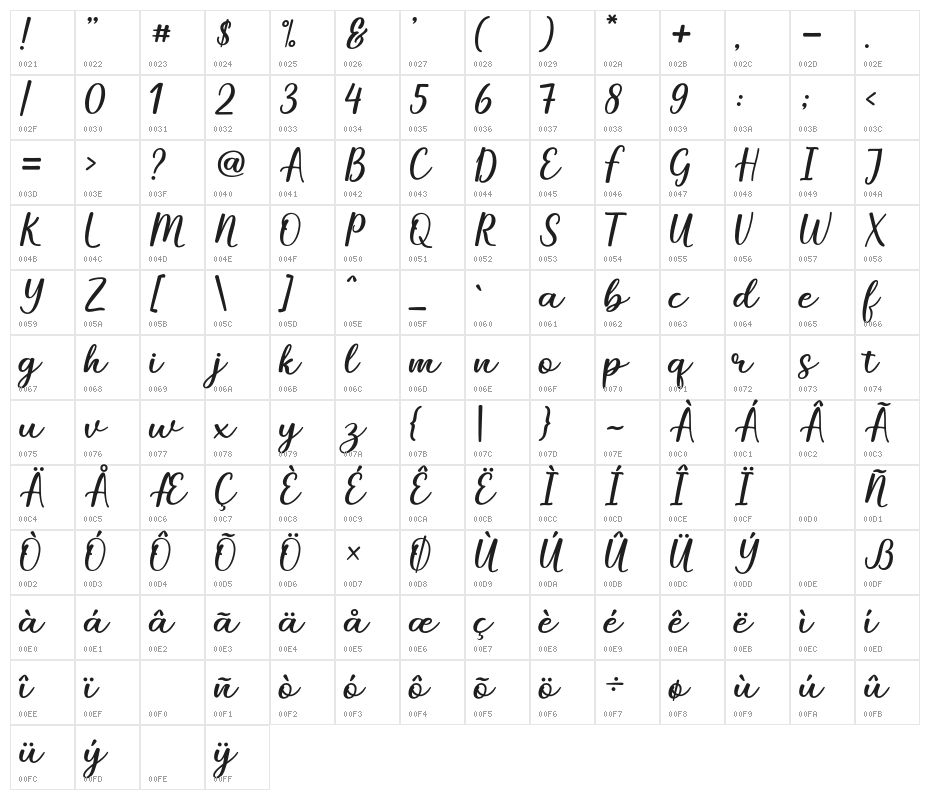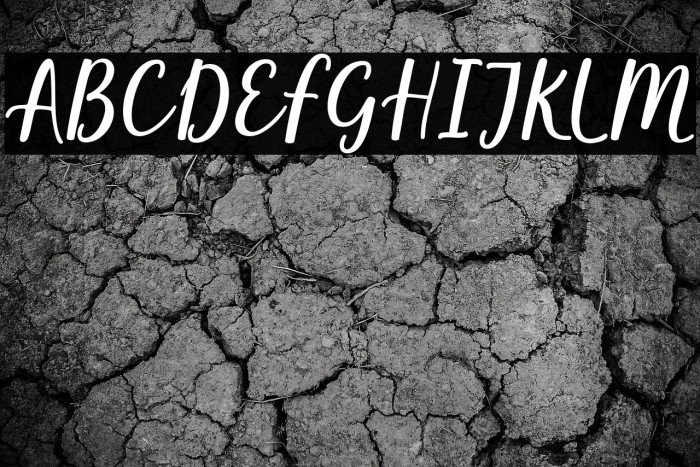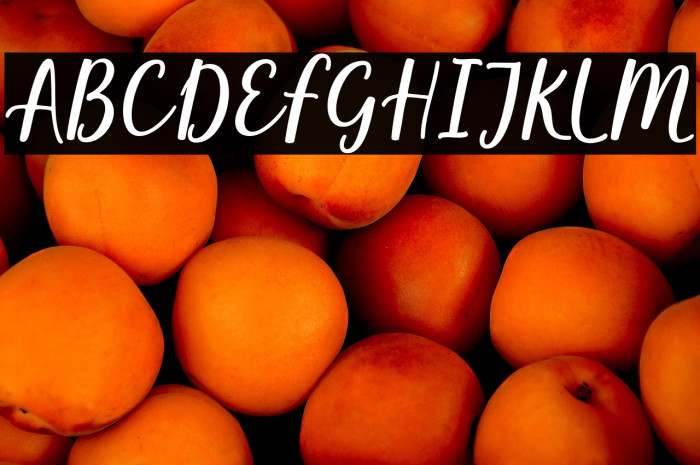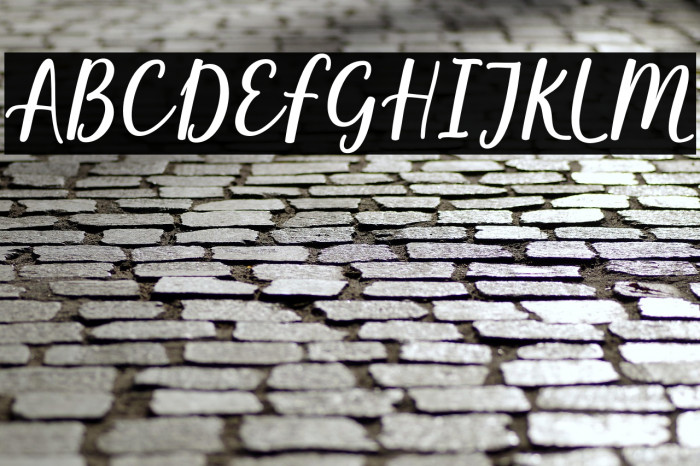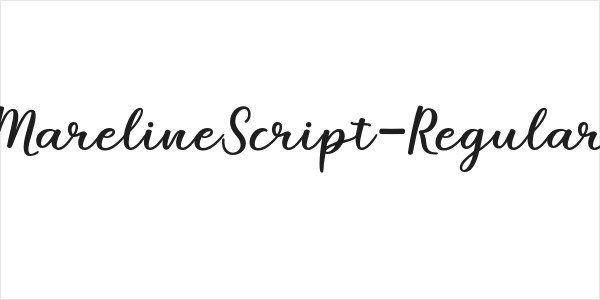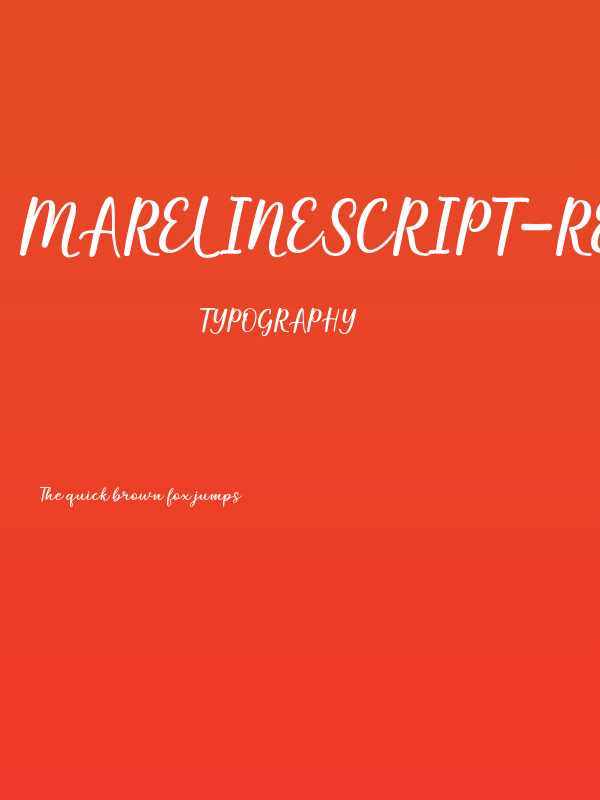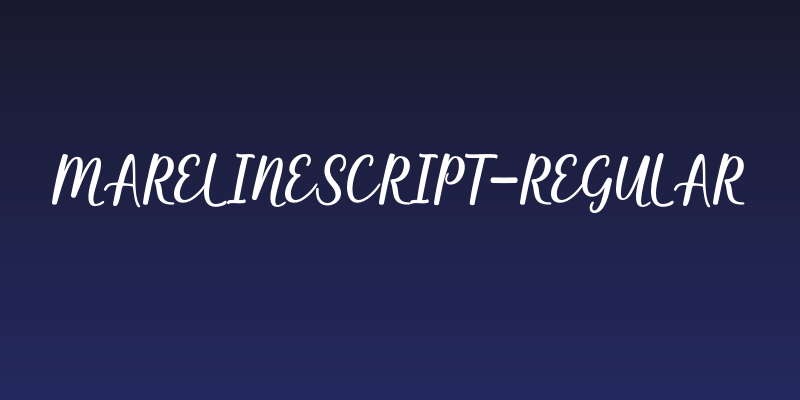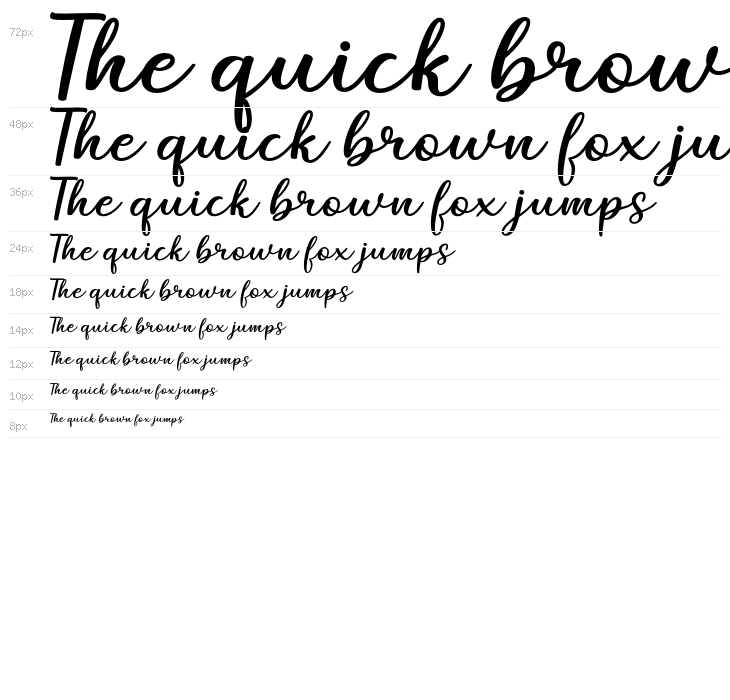
MarelineScript-Regular Font
MarelineScript-Regular Description
This font features a flowing, cursive style with elegant, sweeping strokes that give it a handwritten appearance. The uppercase letters are tall and slightly slanted, while the lowercase letters maintain a consistent flow, enhancing the script's fluidity. The numerals are bold and clear, complementing the overall aesthetic. Special characters are designed with the same attention to detail, ensuring they blend seamlessly with the alphabet. This font's charm lies in its ability to convey a sense of sophistication and personal touch, making it ideal for creative and expressive projects.
| Overall Style | Elegant |
| Use Case | Logos, Invitations, Greeting Cards |
| Proposed Projects | Ideal for wedding invitations, greeting cards, branding, and logo design. |